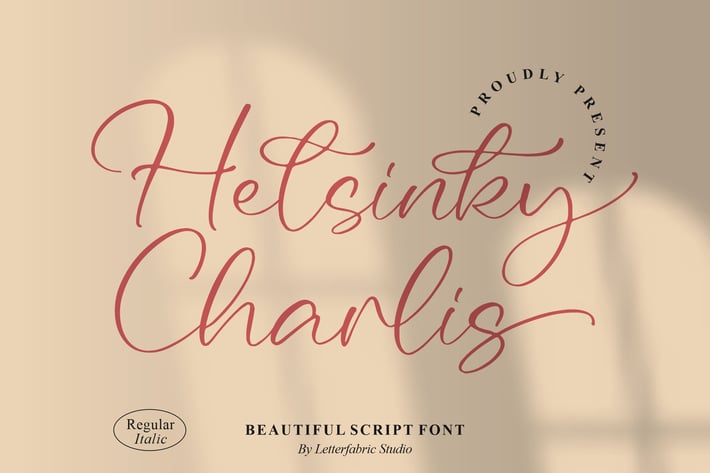
Helsinky Charlis Script Font
Hetsinky Charlis is a graceful and sophisticated script font designed with elegant flowing lines and a natural handwritten touch. Its stylish curves and refined details make it versatile for both modern and timeless design projects. Perfectly balanced between beauty and readability, this font brings a luxurious yet personal feel to your creative works.
+ Regular & Italic styles
+ Multilingual support
+ Smooth flowing ligatures
+ Stylish handwritten script
Bring timeless elegance to your designs with the delicate and stylish flow of Hetsinky Charlis Script Font.